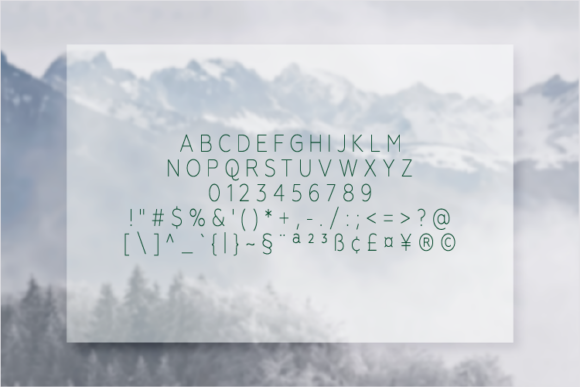
Introducing Allovoneue Extra Light Font: A Fresh Take on Geometric Sans-Serif Typography
In the world of typography, a new font family has emerged that’s making waves with its sleek, modern design. Say hello to Allovoneue, a fresh, geometric, sans-serif font that’s perfect for designers and crafters looking for a versatile and stylish typeface. In this article, we’ll dive into the features and benefits of Allovoneue, with a special focus on its Extra Light Font variant.
What is Allovoneue?
Allovoneue is a geometric sans-serif font family that boasts geometrical letterforms, sharp edges, and very small stroke contrast, reminiscent of neo-grotesk fonts from the 20th century. This font family is designed to be versatile and can be successfully used in a variety of applications, including magazines, posters, branding, and much more.
Key Features of Allovoneue
- Geometric Design: Allovoneue’s letterforms are based on geometric shapes, giving it a clean and modern look.
- Sharp Edges: The font’s sharp edges add a touch of sophistication and elegance to its overall design.
- Small Stroke Contrast: Allovoneue’s small stroke contrast gives it a subtle nuance that’s perfect for body text and headlines.
- Neo-Grotesk Inspiration: The font family draws inspiration from neo-grotesk fonts of the 20th century, giving it a timeless feel.
Allovoneue Extra Light Font: A Designer’s Delight
The Extra Light Font variant of Allovoneue is a perfect choice for designers who want to add a touch of elegance and sophistication to their designs. With its delicate lines and subtle curves, this font is ideal for:
- Headings and Titles: Use Allovoneue Extra Light Font to create stunning headings and titles that grab attention.
- Body Text: This font is also suitable for body text, providing a clean and readable experience for readers.
- Branding and Identity: Allovoneue Extra Light Font can be used to create a strong brand identity that’s both modern and timeless.
Benefits of Using Allovoneue
- Versatility: Allovoneue can be used in a wide range of applications, from print to digital media.
- Legibility: The font’s clean design and subtle nuances make it highly legible, even at small sizes.
- Uniqueness: Allovoneue’s geometric design and neo-grotesk inspiration set it apart from other font families.